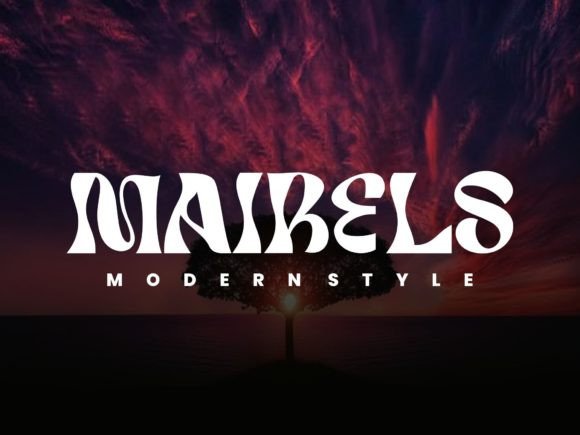
Welcome to the radiant world of Mairels Font, a captivating display font that exudes creativity and style. Immerse yourself in a typographical journey where your words dance with rhythm and flair, leaving an unforgettable impact on your audience.
Step into a realm where individuality meets elegance. Mairels Font is your perfect partner for crafting modern CVs that stand out from the crowd. Its wavy, groovy characters, reminiscent of the free-spirited hippie era, bring a touch of whimsy and personality to your professional documents. With Mairels Font, your CV becomes a canvas of expression, reflecting your unique talents and aspirations.
Unleash your inner artist and let your words take center stage. Mairels Font is not just a collection of letters; it's an invitation to elevate your digital presence. Whether you're a creative professional, a budding entrepreneur, or an aspiring artist, this font will transform your online portfolio into a stunning showcase of your work. Let Mairels Font be your secret weapon to captivate potential clients and employers alike.
Embrace the power of versatility. Mairels Font effortlessly adapts to a myriad of creative endeavors. Design eye-catching social media posts that resonate with your audience. Create stunning visuals for your blog or website that command attention. With Mairels Font, your digital presence will exude a cohesive and captivating aesthetic, leaving a lasting impression on everyone who encounters it.
Join the creative revolution and unlock the full potential of your digital presence. Mairels Font is your passport to a world of endless possibilities. Download it today and embark on a typographical adventure that will redefine your creative expression. Let your words dance with joy, let your designs radiate brilliance, and let your dreams take flight with Mairels Font.